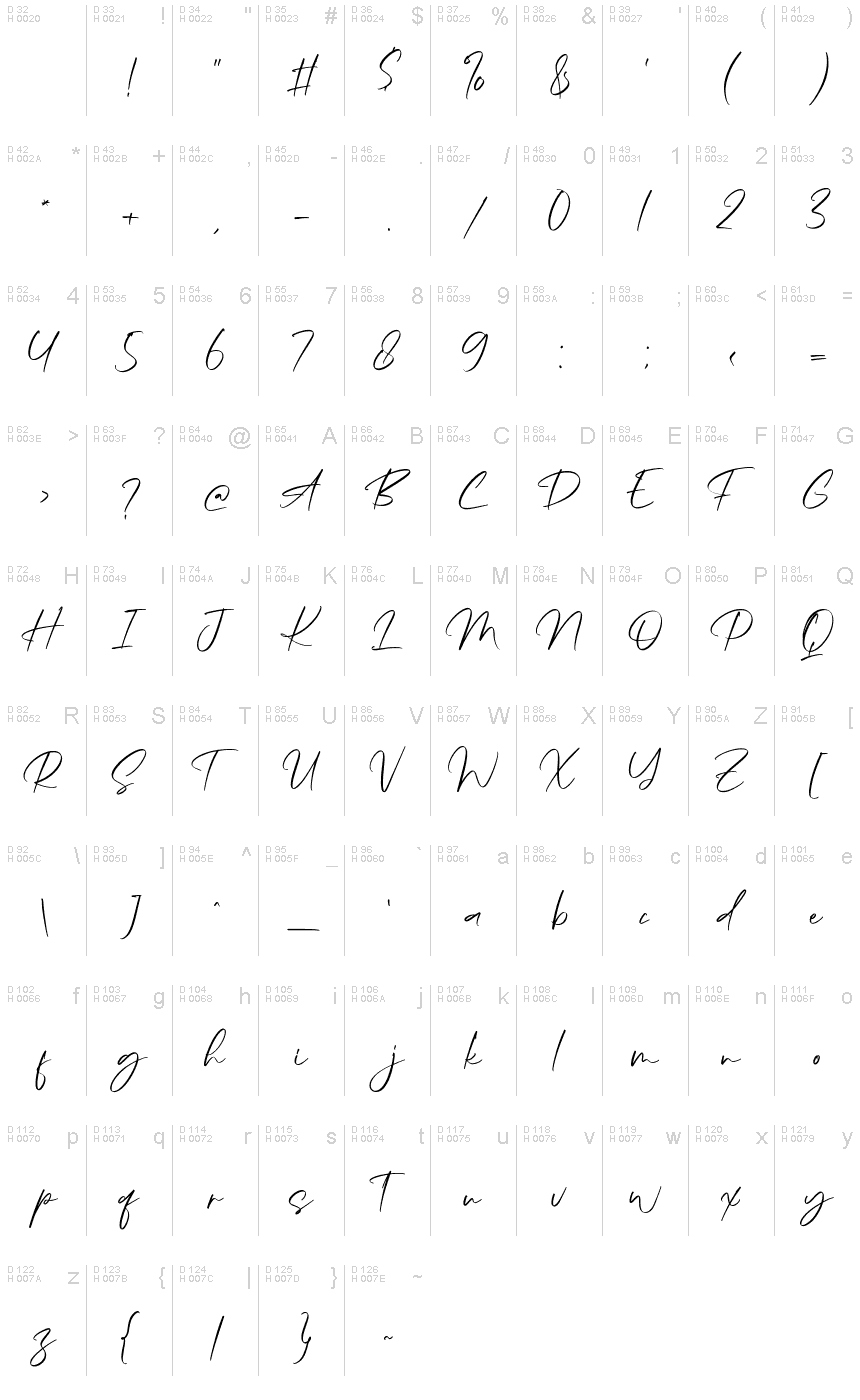
Family Prosperity
Family Prosperity is a light, handwritten font designed by Hatf Type. It's the perfect choice for projects that require a personal, intimate touch - think wedding invitations, scrapbooks, and greeting cards.